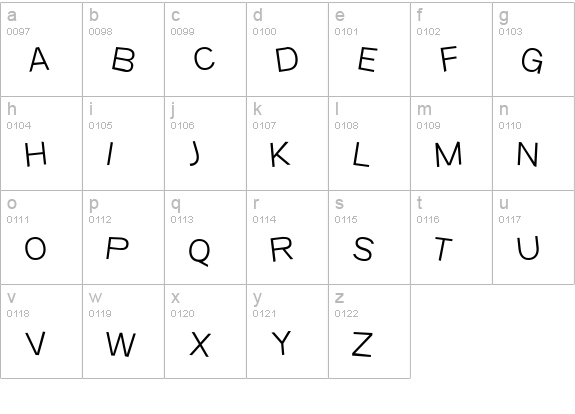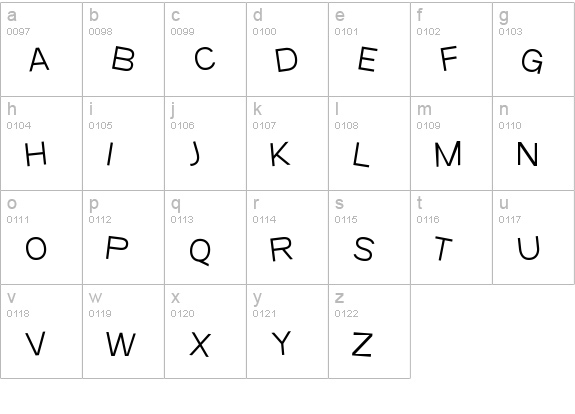
SF Beaverton SC Light Font Details
SF Beaverton SC Light is a refined, elegant variant in the SF typeface family \xE2\x80\x94 well suited to elegant body text, refined sub-headings, and luxury branding.
SF Beaverton SC Light is a stunning sans-serif font that exudes elegance and sophistication. With its clean lines and delicate curves, this font is perfect for adding a touch of modernity to any design project. Whether you're creating a logo, designing a website, or crafting a magazine layout, SF Beaverton SC Light will elevate your work to the next level. This font is incredibly versatile, making it suitable for a wide range of applications. Its light weight adds a sense of airiness and subtlety, while still maintaining excellent readability. The characters are meticulously crafted, with attention to detail evident in every stroke. Each letter flows seamlessly into the next, creating a harmonious and cohesive look that is pleasing to the eye. One of the best things about SF Beaverton SC Light is that it is free to download at FontsMarket.com. This means that you can obtain this beautiful font without breaking the bank. Whether you're a professional designer or a hobbyist, having access to high-quality free fonts is a game-changer. With SF Beaverton SC Light, you can create stunning visuals without having to spend a dime. In conclusion, SF Beaverton SC Light is a visually stunning font that is freely available to download at FontsMarket.com. Its clean lines, delicate curves, and excellent readability make it a perfect choice for a wide range of design projects. Give your work a touch of elegance and modernity with SF Beaverton SC Light.